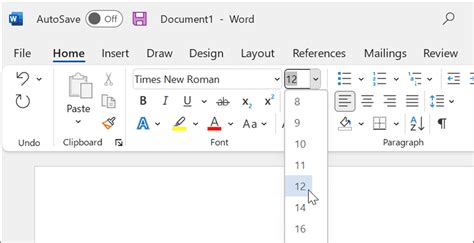
When it comes to academic writing, adhering to specific formatting guidelines is crucial. One of the most common styles used in academic and professional settings is the Modern Language Association (MLA) format. This style guide provides detailed instructions on how to format papers, cite sources, and present information clearly and consistently. One aspect that often raises questions is the font choice. Understanding what font is MLA approved and recommended can help ensure your documents meet the required standards.
Understanding MLA Format
The MLA format is widely used in the humanities, particularly in fields such as literature, language studies, and cultural studies. It emphasizes clarity, consistency, and ease of use. The MLA Handbook, now in its ninth edition, outlines the guidelines for formatting papers, citing sources, and creating works cited pages. One of the key elements of MLA formatting is the choice of font, which plays a significant role in the overall readability and professional appearance of your document.
What Font Is MLA Approved?
According to the MLA Handbook, the recommended font for MLA-formatted papers is a serif font. Serif fonts are those that have small lines or strokes attached to the ends of the letters. These fonts are known for their readability, especially in printed materials. The most commonly recommended serif font for MLA papers is Times New Roman, which is widely available and recognized for its clarity and professional appearance.
However, the MLA Handbook also allows for the use of other serif fonts, as long as they are easily readable and consistent throughout the document. Some other serif fonts that are acceptable include:
- Georgia
- Palatino
- Garamond
It is important to note that while serif fonts are preferred, the MLA Handbook does not strictly prohibit the use of sans-serif fonts. Sans-serif fonts, which do not have the small lines or strokes at the ends of the letters, can also be used if they are easily readable. Examples of sans-serif fonts include Arial, Calibri, and Helvetica. However, it is generally recommended to stick with serif fonts to ensure the highest level of readability and professionalism.
Font Size and Spacing
In addition to the type of font, the MLA format also specifies guidelines for font size and spacing. The recommended font size for MLA papers is 12 points. This size ensures that the text is large enough to be easily read but not so large that it takes up excessive space on the page. The font size should be consistent throughout the document, including the body text, headings, and citations.
Here is an example of how the header should look:
| Last Name | Page Number |
| Smith | 1 |
Note that the first page of your document should also include a header with your name, the instructor's name, the course name, and the date, all aligned to the left margin. This header should be double-spaced and placed at the top of the first page, followed by the title of your paper, which should be centered and not underlined, italicized, or placed in quotation marks.
📝 Note: Ensure that the header and page numbers are consistent throughout the document to maintain a professional appearance.
Citing Sources in MLA Format
Citing sources correctly is a crucial aspect of academic writing. The MLA format provides specific guidelines for citing various types of sources, including books, articles, websites, and more. Proper citation helps to give credit to the original authors and allows readers to locate the sources you have used in your research.